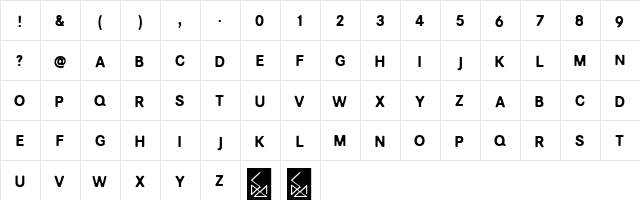
CHEESE PIZZA CHEESE PIZZA
Design Context for CHEESE PIZZA Typeface
CHEESE PIZZA offers clean, dependable letterforms without strong stylistic allegiance, making it a practical choice for designers who need flexibility.